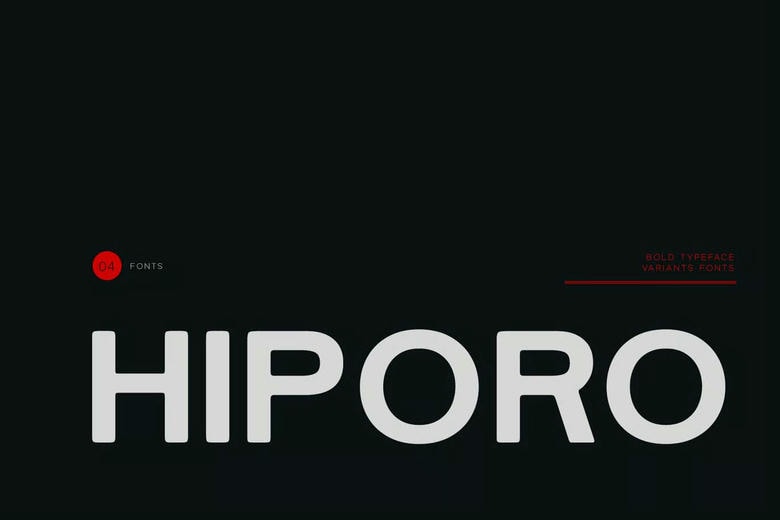
Hiporo Font
Hiporo Font is a one of the Unique Typefaces that have Web Fonts. The font is suitable in both big and small. Hiporo font would be ideal to brand, logos, headlines, captions, and just as a cool font writing on any background picture.
Powerful capitals, and open lower case that is smooth and open can be used in multiple applications. The different weights in it enable you to test a great variety of applications. It is designed in a manner that it creates an impression and does not lose its beauty and readability.
Hiporo Sans Serif Font